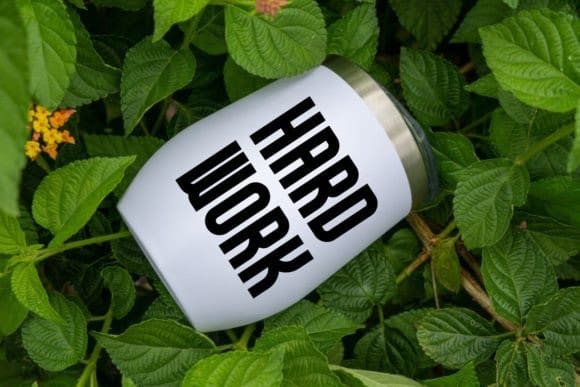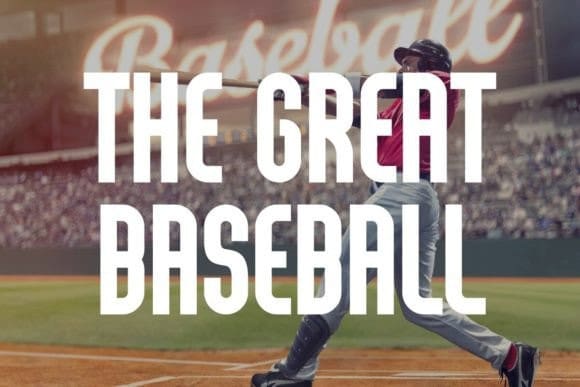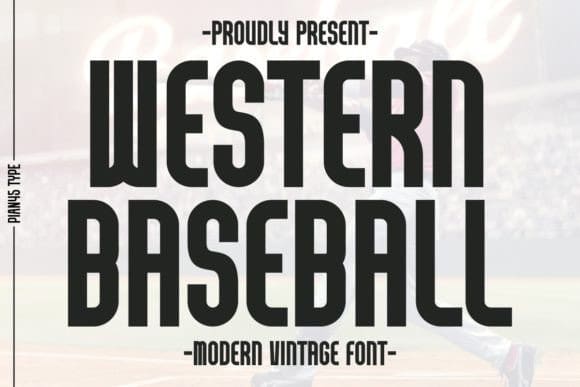
Western Baseball Font
Western Baseball Font is a modern, clean and bold sans serif font with a sporty vibe. With its strong and contemporary design, “Western Baseball” adds a touch of athletic flair and modern elegance to any project. Perfect for creating dynamic posters, backgrounds, memorable quotes, trendy t-shirts, stylish mugs, sleek tumblers, and versatile tote bags.